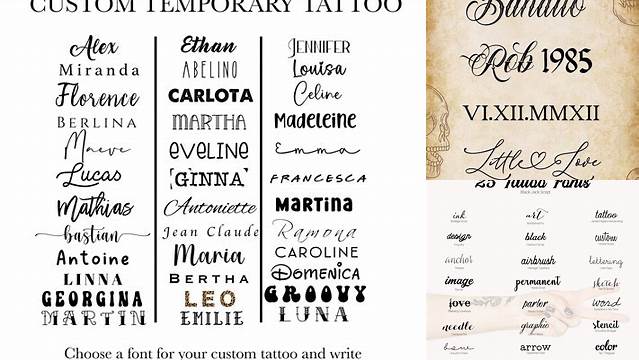
Tattoo Fonts For Names: Free Download & Ideas
Tattoos are a fantastic way to express yourself, and what's more personal than getting a name inked on your skin? But choosing the right font is crucial! It can make or break the entire design. So, if you're on the hunt for the perfect tattoo fonts for names and want to explore some free download options, you've come to the right place. We'll dive deep into the world of tattoo lettering, look at different styles, and even give you some ideas to get those creative juices flowing. Let's get started, guys!
1. Classic Tattoo Lettering Styles
Classic tattoo lettering styles never go out of fashion, guys. They're timeless, elegant, and often easily readable. When thinking about tattoo fonts for names, these styles offer a solid foundation. Think about the old-school sailor tattoos – bold lines, clear shapes, and a distinct vintage feel. These fonts often evoke a sense of history and tradition, making them a popular choice for those who appreciate a classic aesthetic. For example, Old English fonts have a very distinct and recognizable look, often associated with tradition and history. It’s a bold choice that can make a strong statement. Script fonts, inspired by handwriting, offer elegance and fluidity. They can range from simple cursive styles to elaborate calligraphy. These fonts add a personal touch and can be beautifully intertwined with other design elements. Block lettering, characterized by its clean and straightforward appearance, provides maximum readability and impact. It’s a versatile choice that works well for various names and tattoo sizes. Lastly, serif fonts have small decorative strokes at the end of letters, giving them a sophisticated look. Times New Roman or Garamond can be adapted for tattoos, offering a timeless and elegant feel.
2. Modern Tattoo Font Designs
If classic isn't your vibe, maybe modern tattoo font designs are more your style! Modern fonts often incorporate clean lines, minimalist aesthetics, and a touch of innovation. For tattoo fonts for names that feel fresh and contemporary, these designs are definitely worth exploring. Modern tattoo fonts often break away from traditional conventions, incorporating geometric shapes, minimalist designs, and unique letterforms. Sans-serif fonts are a staple in modern design, offering a clean and uncluttered look. Helvetica, Arial, and similar fonts provide excellent readability and a contemporary feel. Geometric fonts incorporate precise shapes and angles, giving the tattoo a structured and modern appearance. These fonts can be very striking and visually appealing. Abstract fonts push the boundaries of traditional typography, using unconventional shapes and arrangements. These fonts are perfect for those looking for something truly unique and artistic. Lastly, handwritten-style fonts can be modernized by using clean, flowing lines that feel both personal and contemporary. Think calligraphy with a minimalist twist.
3. Script Tattoo Fonts for Names
Script fonts are super popular when it comes to name tattoos. They add a touch of elegance and fluidity that other fonts might not have. These tattoo fonts for names mimic handwriting and can range from delicate cursive to bold calligraphy. Calligraphy fonts are like the fancy cousins of script fonts! They often feature elaborate swirls and flourishes, making them ideal for names that deserve a bit of extra flair. Think of elegant wedding invitations, but on your skin. Brush script fonts mimic the look of actual brushstrokes, giving your tattoo a natural and artistic feel. It’s like having a hand-painted masterpiece right on your skin. Cursive fonts are the classic handwriting style, offering a simple yet elegant way to display a name. They are easily readable and versatile, fitting well with various tattoo designs. For a more personalized touch, consider personalized handwriting fonts, which are based on actual handwriting. This creates a unique and deeply meaningful tattoo, reflecting the individual’s style.
4. Gothic Tattoo Fonts and Their Meanings
Gothic fonts have a certain mystique, don't they? They're bold, dramatic, and often associated with a sense of history and tradition. Using Gothic tattoo fonts for names can add a powerful visual impact. But it's not just about the looks; these fonts often carry symbolic weight. Understanding the meanings behind them can help you choose the perfect font that resonates with your personality and the message you want to convey. Gothic fonts are historically linked to medieval texts and architecture, often conveying a sense of strength, mystery, and timelessness. Blackletter fonts, a classic Gothic style, are characterized by their heavy, angular strokes. They often evoke a sense of tradition and can be seen as a nod to historical texts. Old English fonts, a subset of blackletter, are commonly used in diplomas and formal documents, giving them an air of authority and elegance. These fonts can also symbolize a connection to heritage and ancestry. Display Gothic fonts are more decorative and stylized, offering a dramatic visual impact. They are perfect for those who want a bold and eye-catching tattoo. Gothic fonts, in general, can symbolize strength, resilience, and a connection to the past, making them a powerful choice for name tattoos.
5. Old English Tattoo Font Variations
Old English fonts, with their elaborate strokes and historical vibe, are a classic choice for tattoos. When you're considering tattoo fonts for names, Old English can add a timeless touch. But did you know there are variations within the Old English style? Exploring these can help you find the perfect match for your name and overall tattoo design. There are several ways to customize Old English fonts to create a unique tattoo. Consider the thickness of the lines: thicker lines give a bolder, more impactful appearance, while thinner lines can appear more delicate and refined. The presence and style of serifs (the small decorative strokes at the end of letters) can also vary. Some Old English fonts have very pronounced serifs, while others have more subtle ones. The level of ornamentation in the font can also be adjusted. Some Old English fonts are highly ornate, with lots of flourishes and embellishments, while others are more streamlined and minimalist. Customizing these aspects can make a significant difference in the final look. Common variations include traditional Old English, which is the classic, ornate style most people think of, modern Old English, which simplifies the traditional style for better readability and a contemporary feel, and distressed Old English, which adds a weathered or vintage look, making the tattoo appear aged and authentic. Ultimately, the best Old English variation depends on your personal style and the overall design of the tattoo.
6. Cursive Tattoo Fonts and Readability
Cursive fonts are a popular pick for name tattoos, guys! They have that elegant, flowing look that's just so appealing. But here's the thing: readability is key! If your tattoo fonts for names are too swirly or intricate, the name might become hard to decipher. So, let's talk about how to balance style with clarity when choosing a cursive font. When selecting a cursive font, prioritize fonts that maintain a good balance between style and readability. Avoid fonts with overly elaborate flourishes or closely spaced letters. A simple, clean cursive is often the best choice. The placement of the tattoo also plays a role in readability. Areas with a lot of curves or movement (like the wrist or ankle) may distort the font slightly, so choose a font that will still be legible in these areas. The size of the tattoo is crucial: a smaller tattoo will require a simpler font with clear lines, while a larger tattoo can accommodate more intricate designs. To enhance readability, consider adjusting the spacing between letters and words. Adding a bit of extra space can prevent the letters from blurring together. A skilled tattoo artist can advise on the best adjustments to ensure your tattoo is both beautiful and easy to read.
7. Free Tattoo Font Download Websites
Okay, so you're ready to find the perfect font, but you don't want to break the bank? No problem! There are tons of websites offering free tattoo fonts for names. But navigating these sites can be a bit overwhelming, so let's break down some reliable resources where you can find awesome fonts without spending a dime. DaFont is a massive repository of fonts, with a wide variety of styles suitable for tattoos. Look for the “Script” or “Calligraphy” sections for cursive options, or the “Old School” section for classic styles. FontSpace offers a vast selection of free fonts, including many script and decorative fonts perfect for tattoos. The site also has a user-friendly interface, making it easy to find what you're looking for. Google Fonts is a great resource for modern and readable fonts that can be adapted for tattoos. While not specifically designed for tattoos, these fonts offer clean lines and excellent clarity. Creative Market often offers free font downloads as part of their weekly free goods. Keep an eye on their promotions for high-quality options. 1001 Free Fonts is another extensive library with a wide range of font styles. Be sure to check the licensing terms for each font to ensure it's free for commercial use (if needed). Remember to always preview the font with your chosen name to see how it looks before committing to a design. Lastly, ensure that the downloaded font is compatible with your tattoo artist's software. A little preparation can save a lot of headaches later!
8. Matching Fonts with Tattoo Designs
Choosing the right font isn't just about the letters themselves; it's about how they vibe with the overall tattoo design. The font should complement the imagery and enhance the tattoo's message. When considering tattoo fonts for names, think about the visual harmony between the font and the other elements of your tattoo. The style of the font should align with the overall aesthetic of the tattoo. A delicate script font might pair well with floral designs, while a bold Gothic font might suit a more edgy or traditional tattoo. Consider the other design elements in your tattoo. If you have strong, bold lines in your design, a similar font style will create a cohesive look. Conversely, a more delicate font can provide a nice contrast to bolder elements. Think about the overall message you want to convey. A classic font might be chosen for a memorial tattoo, while a more playful font might be used for a tattoo celebrating a joyful event. The size and placement of the font should also complement the design. A larger, more ornate font might work well on a larger area, while a smaller, simpler font is better suited for smaller tattoos or more delicate placements. Experiment with different font and design combinations to see what looks best. A good tattoo artist can provide valuable input on which fonts will work well with your chosen design. Remember, a well-matched font can elevate your tattoo from good to great, creating a visually stunning and meaningful piece of art.
9. Tattoo Font Generators Online
Not sure where to start with font selection? Online tattoo font generators can be super handy! These tools let you preview your name in various fonts, making it easier to visualize the final result. For tattoo fonts for names, these generators can save you a ton of time and effort. Tattoo font generators allow you to quickly preview your chosen name or word in a variety of fonts, helping you visualize the final tattoo design. Many generators offer a wide selection of fonts, ranging from classic scripts to modern sans-serif styles, allowing you to explore different looks. These tools often allow you to customize the size, color, and orientation of the font, providing a realistic preview of how the tattoo will look on your skin. Some generators offer additional features, such as the ability to add design elements or backgrounds, further enhancing the visualization process. Popular online tattoo font generators include Tattoo Lettering, Font Generator Guru, and Tattoodo. These sites provide a range of options and user-friendly interfaces. Using a font generator can save time by narrowing down font choices before consulting with a tattoo artist. You can experiment with different styles and sizes to get a clear idea of what you want. While these generators are helpful, it’s always a good idea to consult with a professional tattoo artist. They can offer advice on font suitability, readability, and how the font will work with the overall tattoo design. Keep in mind that the generator is just a starting point; the final decision should always be made in consultation with your artist.
10. Font Size and Placement Considerations
The size and placement of your name tattoo can significantly impact its overall look and readability. For tattoo fonts for names, these factors are just as important as the font choice itself. A well-chosen font in the wrong size or placement might not look as good as you'd hoped, so let's delve into the details. Consider the placement of your tattoo when choosing a font size. Smaller, more intricate fonts work well on larger, flatter areas like the back or chest. Simpler, bolder fonts are better for smaller areas or those with curves and movement, like the wrist or ankle. The size of the font should be proportional to the body part. A tiny font on a large area might look lost, while a huge font on a small area can look cramped. Think about the readability of the font at the chosen size. A beautiful cursive font might be illegible if it’s too small. Always do a test print or use a font generator to see how the font looks at different sizes. Placement can affect how the tattoo ages over time. Areas with a lot of movement or friction might cause the tattoo to fade or blur more quickly, so a simpler, bolder font might be a better choice in these areas. Consult with your tattoo artist about the best size and placement for your tattoo. They can provide valuable advice based on their experience and your specific design. Remember, the goal is to create a tattoo that looks great now and will continue to look great for years to come. Proper size and placement are key to achieving this.
11. Best Tattoo Fonts for Forearm Tattoos
The forearm is a super popular spot for tattoos, and for good reason! It's visible, yet easily concealed, and offers a decent amount of space for designs. So, what are the best tattoo fonts for names when it comes to forearm tattoos? Let's explore some stylish and legible options that work well on this versatile canvas. For forearm tattoos, readability is key, as the area is often viewed up close. Bold, clear fonts like sans-serif or block lettering are excellent choices for maximum impact and legibility. Script fonts can also work well on the forearm, but it’s important to choose a font that is not too intricate. A simpler, cleaner script will be easier to read and will age better over time. The length of the name or word will influence the font choice. Longer names may require a more condensed font or a smaller size, while shorter names can handle bolder or more decorative fonts. The direction of the tattoo (horizontal or vertical) can also affect the font choice. Horizontal tattoos typically work well with a wider range of fonts, while vertical tattoos may benefit from taller, narrower fonts. Popular font styles for forearm tattoos include Old English (for a classic look), cursive scripts (for elegance), and geometric fonts (for a modern feel). Consider the overall aesthetic you want to achieve. A simple, minimalist font can create a clean and understated look, while a more ornate font can make a bold statement. Consult with your tattoo artist to discuss font options and placement. They can provide valuable advice on what will look best on your forearm and ensure the tattoo is well-executed. Remember, the forearm is a prominent spot, so choosing the right font is essential for a tattoo you’ll love for years to come.
12. Tattoo Fonts for Wrist Name Tattoos
The wrist is a delicate and intimate spot for a tattoo, often chosen for its visibility and personal significance. When it comes to tattoo fonts for names on the wrist, careful consideration is essential. The limited space requires a font that is both stylish and legible. The small canvas of the wrist requires a font that is clean and easy to read. Intricate or overly decorative fonts can become blurred or illegible in this area. Simpler fonts like sans-serif, delicate scripts, and thin serifs tend to work best on the wrist. The length of the name or word is a crucial factor. Shorter names are ideal for wrist tattoos, as they can be displayed clearly without overcrowding the space. If the name is longer, consider using initials or a nickname. The placement of the tattoo on the wrist can affect the font choice. Tattoos that wrap around the wrist may benefit from a more flexible or flowing font, while those placed on the flat part of the wrist may accommodate a wider range of styles. Consider the overall aesthetic you want to achieve. A delicate script font can add a touch of elegance, while a simple sans-serif font can create a minimalist look. Popular font styles for wrist tattoos include cursive scripts (for a feminine touch), minimalist sans-serif (for a modern feel), and Roman numerals (for a timeless and symbolic look). It’s crucial to choose a font that will age well on the wrist, as the skin in this area is prone to movement and friction. Simpler fonts with clean lines are less likely to blur or fade over time. Always consult with your tattoo artist to discuss font options and placement. They can provide valuable advice on what will look best on your wrist and ensure the tattoo is perfectly executed.
13. Ankle Tattoo Lettering Ideas
The ankle is another popular spot for tattoos, often chosen for its discreet yet stylish appeal. Ankle tattoos can be easily concealed or shown off, making them a versatile choice. When it comes to tattoo fonts for names on the ankle, there are several unique considerations. The shape and size of the ankle area require careful font selection. The curvature of the ankle can distort the appearance of some fonts, so it’s important to choose a font that will remain legible. The limited space on the ankle means that simpler, smaller fonts often work best. Overly elaborate or large fonts can look cramped or illegible. Delicate script fonts can be particularly beautiful on the ankle, adding a touch of elegance and femininity. However, it’s crucial to choose a script that is not too intricate, as fine lines can blur over time. Vertical tattoos are common on the ankle, following the natural curve of the leg. Taller, narrower fonts work well in this orientation. Shorter names or words are ideal for ankle tattoos, as they fit comfortably within the space. If the name is longer, consider using initials or a symbolic abbreviation. Consider the overall aesthetic you want to achieve. A minimalist sans-serif font can create a clean and modern look, while a more decorative font can add a touch of personality. Popular font styles for ankle tattoos include cursive scripts (for a delicate look), sans-serif fonts (for a modern feel), and small Old English fonts (for a classic touch). It’s important to choose a font that will age well on the ankle, as the skin in this area is subject to movement and friction. Simpler fonts with clear lines are less likely to fade or blur over time. Always consult with your tattoo artist to discuss font options and placement. They can provide valuable advice on what will look best on your ankle and ensure the tattoo is perfectly executed.
14. Shoulder Tattoo Font Styles
The shoulder is a fantastic canvas for tattoos, offering a broad, flat surface that can accommodate a wide range of designs. When it comes to tattoo fonts for names on the shoulder, the possibilities are nearly endless. The shoulder offers ample space for larger, more elaborate fonts. This makes it a great choice for those who want to make a bold statement. The shape of the shoulder allows for tattoos that flow with the natural curves of the body. Fonts that incorporate flowing lines or decorative elements can be particularly striking in this area. Bold, script fonts work well on the shoulder, adding a touch of elegance and sophistication. The size of the font can be adjusted to fit the space, allowing for longer names or phrases. The shoulder can also accommodate larger, more intricate fonts. Gothic or Old English fonts can create a dramatic and impactful look. Consider the placement of the tattoo on the shoulder. Tattoos that extend towards the collarbone or down the arm may benefit from a different font style than those placed on the upper shoulder. Think about the overall aesthetic you want to achieve. A minimalist sans-serif font can create a clean and modern look, while a more ornate font can add a touch of personality and flair. Popular font styles for shoulder tattoos include script fonts (for a flowing, elegant look), Gothic or Old English fonts (for a bold, dramatic appearance), and sans-serif fonts (for a clean, modern feel). Consult with your tattoo artist to discuss font options and placement. They can provide valuable advice on what will look best on your shoulder and ensure the tattoo is perfectly executed. Remember, the shoulder is a prominent and versatile spot, so choosing the right font can create a tattoo that is both beautiful and meaningful.
15. Back Tattoo Lettering Ideas for Names
The back is often considered a prime location for tattoos, offering a large canvas that allows for intricate and expansive designs. When considering tattoo fonts for names on the back, the possibilities are vast and varied. The back's expansive surface provides ample space for larger, more elaborate lettering styles. This allows for creativity in font selection and design. The back allows for designs that flow with the natural contours of the body. Script fonts, cursive styles, and other flowing fonts can be particularly striking in this area. Consider the placement of the name on the back. A name placed along the spine can create a dramatic and personal statement, while a name across the upper back can be more visible. The size of the font should be proportional to the overall design and the size of the back. A smaller font may get lost on a larger back, while an overly large font can appear overwhelming. Think about the overall aesthetic you want to achieve. A Gothic or Old English font can create a bold and dramatic statement, while a delicate script font can add an elegant and personal touch. Popular font styles for back tattoos include script fonts (for a flowing, elegant look), Gothic or Old English fonts (for a bold, dramatic appearance), and Roman numerals (for a timeless and symbolic touch). Consider incorporating other design elements with the name, such as floral patterns, symbols, or geometric shapes, to create a unique and personalized tattoo. Consult with your tattoo artist to discuss font options, placement, and overall design. They can provide valuable advice on what will look best on your back and ensure the tattoo is perfectly executed. Remember, the back is a significant canvas, so choosing the right font and design can create a tattoo that is both beautiful and deeply meaningful.
16. Rib Cage Tattoo Font Styles
The rib cage is a popular spot for tattoos, often chosen for its ability to create both intimate and visually striking designs. Tattoos on the rib cage can be easily concealed or revealed, offering a versatile option for self-expression. When considering tattoo fonts for names on the rib cage, there are specific considerations due to the area's shape and sensitivity. The rib cage's curved surface requires careful font selection to ensure legibility and aesthetic appeal. Fonts that flow with the body's natural lines, such as script or cursive styles, often work well in this area. The limited space on the rib cage may necessitate simpler, more compact fonts. Overly elaborate or large fonts can appear cramped or distorted. The sensitivity of the rib cage area can influence font choice. Simpler fonts with thinner lines may be less painful to tattoo than bold, heavy fonts. Consider the placement of the name on the rib cage. A name placed along the ribs can create a subtle and personal statement, while a name extending across the ribs can be more visible and dramatic. The size of the font should be proportional to the area and the length of the name. A longer name may require a smaller font or a more condensed style. Think about the overall aesthetic you want to achieve. A delicate script font can add a feminine and elegant touch, while a bold Gothic font can create a more edgy and dramatic look. Popular font styles for rib cage tattoos include script fonts (for a flowing, elegant look), sans-serif fonts (for a clean, minimalist feel), and Roman numerals (for a symbolic and timeless touch). Consult with your tattoo artist to discuss font options, placement, and pain considerations. They can provide valuable advice on what will look best on your rib cage and ensure the tattoo is perfectly executed. Remember, the rib cage offers a unique canvas, so choosing the right font and design can create a tattoo that is both beautiful and deeply personal.
17. Finger Tattoo Lettering for Names
Finger tattoos have become increasingly popular, offering a discreet yet stylish way to express yourself. However, the small canvas and unique challenges of finger tattoos require careful consideration, especially when it comes to lettering. When thinking about tattoo fonts for names on your fingers, simplicity and clarity are key. The limited space on fingers necessitates very small fonts. Overly intricate or detailed fonts can blur or fade quickly, becoming illegible. Simple, minimalist fonts with clear lines and shapes tend to work best on fingers. Sans-serif fonts, such as Arial or Helvetica, are excellent choices for finger tattoos due to their clean and straightforward design. Consider using initials or abbreviations rather than full names, as they are easier to accommodate on the small surface of a finger. The placement of the tattoo on the finger can affect font choice. Letters placed on the sides of the fingers may require a slightly different font style than those placed on the top or bottom. The thin skin on fingers can cause tattoos to fade more quickly than in other areas. Choose a font that will maintain its shape and clarity over time. Avoid fonts with very thin lines or delicate details, as these are more prone to fading. Consider the overall aesthetic you want to achieve. A simple, minimalist font can create a subtle and elegant look, while a slightly bolder font can make a more impactful statement. Consult with your tattoo artist about font options and placement. They can provide valuable advice based on their experience with finger tattoos and ensure the best possible outcome. Remember, finger tattoos are prone to fading and may require touch-ups, so choosing a font that is easy to maintain is essential.
18. Minimalist Tattoo Font Choices
Minimalist tattoos are all the rage these days, and for good reason! They're clean, elegant, and understated. If you're leaning towards a minimalist vibe for your name tattoo, the font choice is crucial. The right minimalist tattoo fonts for names can make a big impact with their simplicity. Minimalist fonts are characterized by their clean lines, simple shapes, and lack of ornamentation. These fonts prioritize clarity and readability, making them ideal for small tattoos or designs with a subtle aesthetic. Sans-serif fonts are a staple of minimalist design. Arial, Helvetica, and similar fonts offer a clean and modern look that works well for minimalist tattoos. Thin, delicate fonts can create a subtle and elegant effect. These fonts are perfect for those who want a tattoo that is understated yet stylish. Monoline fonts, which have consistent line thickness throughout each letter, are another excellent choice for minimalist tattoos. They offer a clean and balanced appearance. Consider using lowercase letters for a softer and more understated look. Lowercase fonts can add a touch of playfulness to a minimalist tattoo. When choosing a minimalist font, think about the overall design of the tattoo. The font should complement the other elements and create a cohesive look. Minimalist fonts can be combined with simple geometric shapes or line work to create a modern and stylish tattoo. The placement of the tattoo can also influence font choice. Smaller, more delicate fonts work well on areas like the wrist or ankle, while slightly bolder fonts can be used on larger areas like the forearm or shoulder. Consult with your tattoo artist about font options and placement. They can provide valuable advice on what will look best with your overall design and aesthetic. Remember, the beauty of minimalist tattoos lies in their simplicity, so choosing the right font is essential for achieving the perfect understated look.
19. Bold Tattoo Lettering Styles for Names
Sometimes, you want your tattoo to make a statement! Bold lettering styles are perfect for those who want their name tattoo to stand out and command attention. For tattoo fonts for names that pack a punch, bold fonts are the way to go. Bold fonts are characterized by their thick lines and strong visual presence. They are designed to be easily seen and read, making them ideal for tattoos that you want to be noticed. Block lettering is a classic choice for bold tattoos. These fonts feature thick, uniform lines that create a strong and impactful look. Gothic fonts, with their heavy strokes and dramatic flair, are another excellent option for bold lettering. Old English fonts, a subset of Gothic, offer a traditional and ornate style that can be very striking. Consider using uppercase letters for an even bolder look. Uppercase letters tend to have a more assertive and commanding presence than lowercase letters. Shadowed fonts can add depth and dimension to your tattoo, making the lettering appear even bolder. A simple shadow effect can enhance the visual impact of the font. Outline fonts, where the letters are defined by their outlines rather than filled in, can also create a bold and striking look. The negative space within the letters draws the eye and makes the tattoo stand out. When choosing a bold font, think about the placement of the tattoo. Bold fonts work well on larger areas like the forearm, shoulder, or back, where there is ample space for the lettering to be displayed prominently. Consult with your tattoo artist about font options and placement. They can provide valuable advice on what will look best with your overall design and aesthetic. Remember, bold lettering is all about making a statement, so choose a font that reflects your personality and style.
20. Unique and Creative Name Tattoo Fonts
If you're looking for a name tattoo that's truly one-of-a-kind, it's time to think outside the box! Ditch the standard fonts and explore some unique and creative options. When it comes to tattoo fonts for names, stepping away from the norm can result in a truly personalized piece of art. Calligraphy-inspired fonts can add a touch of elegance and artistry to your name tattoo. These fonts mimic the look of hand-lettered calligraphy, creating a flowing and graceful design. Brush script fonts, which resemble brushstrokes, offer a more organic and artistic feel. These fonts add a personal touch and can make your tattoo look like a hand-painted masterpiece. Consider incorporating symbols or design elements into the font itself. For example, you could add floral accents or geometric shapes to the letters. Hand-drawn fonts, which mimic the look of actual handwriting, are a great way to create a truly unique and personalized tattoo. These fonts capture the individuality of your own handwriting or the handwriting of someone special. Experiment with unconventional font styles, such as those inspired by vintage signage or typography. These fonts can add a retro or industrial vibe to your tattoo. Consider using a combination of different fonts to create a more dynamic and visually interesting design. Mixing and matching font styles can add depth and personality to your tattoo. When choosing a unique font, think about the overall design of the tattoo and how the font will complement the other elements. The font should enhance the message and aesthetic of the tattoo. Consult with your tattoo artist about font options and design ideas. They can provide valuable input and help you create a truly unique and meaningful tattoo. Remember, a unique font can elevate your name tattoo from ordinary to extraordinary, creating a piece of art that is as individual as you are.
21. Tattoo Fonts Inspired by Handwriting
Handwriting fonts bring a personal and intimate touch to tattoos. They capture the unique character and style of individual handwriting, making your name tattoo feel extra special. If you're considering tattoo fonts for names, these fonts offer a direct connection to someone's personality. Handwriting fonts mimic the look of actual handwriting, from casual script to elegant cursive. This personal touch can make your tattoo feel more meaningful and intimate. There are several variations of handwriting fonts to choose from. Some mimic the look of neat, flowing cursive, while others capture the more casual and spontaneous style of everyday handwriting. You can even have a font custom-made from your own handwriting or the handwriting of a loved one. This creates a truly unique and personal tattoo. Consider the legibility of the font. While the personal touch of handwriting is appealing, it’s important to choose a font that is still easy to read. Choose a font with clear and distinct letterforms. The placement of the tattoo can also influence font choice. Smaller, more delicate handwriting fonts work well on areas like the wrist or ankle, while larger handwriting fonts can be used on areas like the forearm or shoulder. Think about the overall message you want to convey. A neat and elegant handwriting font can add a touch of sophistication, while a more casual font can create a relaxed and personal feel. Consider incorporating other design elements with the handwriting, such as a signature or a meaningful date. This can add further personalization to your tattoo. Consult with your tattoo artist about font options and design ideas. They can provide valuable input and help you create a tattoo that truly reflects your personality and style. Remember, handwriting fonts offer a unique opportunity to create a tattoo that is deeply personal and meaningful. They capture the essence of individual handwriting, making your name tattoo a true reflection of you or someone you love.
22. Matching Tattoo Fonts with Personalities
The font you choose for your name tattoo can say a lot about your personality! Just like clothes or hairstyles, different fonts evoke different feelings and styles. So, when thinking about tattoo fonts for names, consider how the font reflects who you are. If you have a classic and timeless personality, consider traditional fonts like Old English or Roman. These fonts exude elegance and sophistication, making a statement that is both timeless and refined. For a more modern and minimalist personality, sans-serif fonts are an excellent choice. These fonts offer clean lines and a simple aesthetic, reflecting a contemporary and understated style. If you’re artistic and creative, explore calligraphy-inspired or brush script fonts. These fonts add a touch of artistry and flair, capturing the essence of a free-spirited personality. For those with a bold and dramatic personality, Gothic or blackletter fonts can make a strong statement. These fonts exude power and confidence, making your tattoo a true reflection of your assertive nature. If you have a delicate and feminine personality, consider cursive or script fonts. These fonts add a touch of elegance and grace, creating a tattoo that is both beautiful and refined. For a more playful and whimsical personality, hand-drawn fonts or unique lettering styles can be a great choice. These fonts add a personal touch and reflect a fun-loving and carefree attitude. Think about your personal style and the overall message you want to convey with your tattoo. The font should align with your personality and create a cohesive look. Consult with your tattoo artist about font options and design ideas. They can provide valuable input and help you choose a font that truly reflects who you are. Remember, your name tattoo is a personal statement, so choosing a font that matches your personality is key to creating a tattoo you’ll love for years to come.
23. Combining Fonts in Name Tattoos
Who says you have to stick to just one font? Combining different fonts in your name tattoo can create a visually interesting and unique design. For tattoo fonts for names, mixing and matching can add depth and personality, making your tattoo stand out from the crowd. Combining fonts can add visual interest and create a more dynamic design. The contrast between different font styles can make your tattoo more eye-catching and memorable. You can use different fonts to highlight certain parts of the name or add emphasis to specific letters. For example, you might use a bold font for the first letter and a more delicate font for the rest of the name. When combining fonts, it’s important to choose fonts that complement each other. A good rule of thumb is to pair a simpler font with a more decorative font. Avoid using fonts that are too similar, as this can create a cluttered or confusing look. Consider using different font sizes to add visual hierarchy to your tattoo. Larger fonts will draw the eye, while smaller fonts can be used for secondary elements. You can also combine fonts with different weights, such as a bold font paired with a lighter font. This creates a contrast that adds depth to the design. Think about the overall aesthetic you want to achieve. Combining different font styles can create a variety of effects, from elegant and sophisticated to playful and whimsical. Consult with your tattoo artist about font combinations and design ideas. They can provide valuable input and help you create a tattoo that is both visually appealing and meaningful. Remember, combining fonts can be a great way to add personality and creativity to your name tattoo, but it’s important to do it thoughtfully and with the guidance of a professional.
24. Tattoo Font Color and Shading Effects
The color and shading of your tattoo font can dramatically change its appearance and impact. These elements add depth, dimension, and personality to your name tattoo. When selecting tattoo fonts for names, don't overlook the power of color and shading. Color can evoke emotions and add visual interest to your tattoo. Different colors have different meanings and can be used to express your personality and style. Black ink is a classic choice for tattoos and offers a timeless and bold look. Black ink is versatile and works well with a variety of font styles. Gray ink can be used to create subtle shading and depth, adding dimension to your tattoo. Shading techniques, such as stippling or gradients, can enhance the visual impact of the font. Colored ink can add vibrancy and personality to your tattoo. Consider using colors that have personal significance or that complement your skin tone. White ink can be used to create subtle highlights and details, adding a delicate touch to your tattoo. Shading techniques can add depth and dimension to the font, making it appear more three-dimensional. Consider using different shading styles, such as gradients or cross-hatching, to create unique effects. The color and shading should complement the font style and the overall design of the tattoo. A bold font may look best with solid black ink, while a more delicate font may benefit from subtle shading. Consult with your tattoo artist about color and shading options. They can provide valuable input and help you create a tattoo that is both visually appealing and meaningful. Remember, the color and shading of your tattoo font are important design elements that can enhance the overall look and feel of your tattoo. Choosing the right color and shading can make your tattoo a true work of art.
25. Temporary Tattoo Fonts for Name Placement
Not quite ready to commit to permanent ink? Temporary tattoos are an awesome way to test out font styles and placements before making a decision. For tattoo fonts for names, using a temporary tattoo lets you preview the design and make sure it's perfect for you. Temporary tattoos allow you to experiment with different font styles and sizes without the commitment of a permanent tattoo. This is a great way to visualize how the font will look on your skin and ensure you’re happy with the choice. You can try out different placements for your name tattoo using temporary tattoos. This helps you determine the best location on your body and see how the tattoo looks in different positions. Temporary tattoos are an excellent way to gauge the size of the font. You can create temporary tattoos in various sizes to see which one looks best and is most legible. You can wear a temporary tattoo for a few days or weeks to see how it feels and looks in everyday life. This can help you decide if the font and placement are right for you before making a permanent commitment. Temporary tattoos are a great way to get feedback from friends and family on your tattoo design. You can wear the temporary tattoo and ask for their opinions before getting the permanent ink. There are several online services that allow you to create custom temporary tattoos using your chosen font and name. These services make it easy to design and order temporary tattoos for testing purposes. Consider creating a few different temporary tattoos with various font styles and placements. This will give you a range of options to try out and help you make the best decision for your permanent tattoo. Consult with your tattoo artist about using temporary tattoos to test your design. They can provide valuable input and help you create a temporary tattoo that accurately reflects your desired look. Remember, temporary tattoos are a valuable tool for ensuring you’re happy with your name tattoo before making it permanent. They allow you to experiment with different styles and placements, giving you the confidence to make the right choice.
26. Aftercare Tips for Name Tattoos
Okay, so you've got your awesome name tattoo – congrats! But the job's not done yet. Proper aftercare is crucial to ensure your tattoo heals beautifully and stays vibrant for years to come. For tattoo fonts for names, following these aftercare tips will help maintain the clarity and crispness of the lettering. Keep the bandage on for the recommended time. Your tattoo artist will usually advise you on how long to keep the initial bandage on, typically a few hours. This bandage protects the fresh tattoo from bacteria and irritation. Gently wash the tattoo with mild soap and warm water. After removing the bandage, gently wash the tattoo with a mild, fragrance-free soap and warm water. Avoid harsh soaps or scrubbing, as this can irritate the skin. Pat the tattoo dry with a clean towel. Avoid rubbing the tattoo, as this can cause irritation and damage. Gently pat it dry with a clean, soft towel. Apply a thin layer of tattoo aftercare ointment. Apply a thin layer of tattoo aftercare ointment or moisturizer to keep the tattoo hydrated. Avoid using petroleum-based products, as they can clog pores. Keep the tattoo clean and dry. Avoid soaking the tattoo in water, such as in baths or swimming pools, until it is fully healed. Wear loose-fitting clothing. Avoid wearing tight clothing over the tattoo, as this can cause friction and irritation. Avoid scratching or picking at the tattoo. It’s normal for the tattoo to itch as it heals, but avoid scratching or picking at it, as this can damage the tattoo and increase the risk of infection. Protect the tattoo from the sun. Once the tattoo is healed, protect it from the sun by applying sunscreen. Sun exposure can cause the tattoo to fade over time. Follow your tattoo artist’s specific aftercare instructions. Your tattoo artist may have specific aftercare instructions based on your skin type and the tattoo design. Be sure to follow their instructions carefully. Remember, proper aftercare is essential for ensuring your name tattoo heals properly and looks its best. Following these tips will help keep your tattoo vibrant and beautiful for years to come.
27. Common Mistakes to Avoid with Name Tattoos
Getting a name tattoo is a big decision, and there are a few common pitfalls you'll want to steer clear of. Knowing what not to do is just as important as knowing what to do! When it comes to tattoo fonts for names, avoiding these mistakes will help ensure you end up with a tattoo you love. Choosing a font that is too small or intricate can lead to illegibility over time. Small, detailed fonts are more prone to blurring and fading, so opt for a font that is clear and easy to read. Selecting a font that doesn’t age well is another common mistake. Trendy fonts may look great now, but they might not stand the test of time. Choose a classic and timeless font that will still look good in years to come. Failing to consider placement can impact the look and readability of your tattoo. The placement should complement the font and the overall design. Avoid placing the tattoo in areas that are prone to stretching or distortion, such as joints. Not researching your tattoo artist is a big no-no! Make sure your artist is experienced and reputable, especially with lettering tattoos. Look at their portfolio and read reviews before making a decision. Neglecting aftercare can ruin a perfectly good tattoo. Follow your tattoo artist’s aftercare instructions carefully to ensure proper healing and prevent infection. Skipping the consultation with your tattoo artist is a missed opportunity. This is your chance to discuss your design ideas, font choices, and placement options. Trust your artist’s expertise. Rushing the decision-making process can lead to regrets. Take your time to consider your options and make sure you’re 100% happy with the design before getting inked. Remember, a name tattoo is a permanent decision, so it’s important to avoid these common mistakes. Careful planning and research will help you end up with a tattoo you’ll love for a lifetime.
28. How to Choose the Right Tattoo Artist for Lettering
Choosing the right tattoo artist is crucial for any tattoo, but it's especially important for lettering. A skilled artist can make or break your name tattoo, so you want to do your homework! When it comes to tattoo fonts for names, finding an artist who specializes in lettering is the key to success. Look for an artist with a strong portfolio of lettering tattoos. This is the best way to assess their skills and style. Pay attention to the quality of the line work, the consistency of the font, and the overall design. Check online reviews and testimonials to get feedback from other clients. This can give you valuable insights into the artist’s professionalism, hygiene practices, and customer service. Ask for recommendations from friends or online tattoo communities. Personal recommendations can be a great way to find a reputable artist. Schedule a consultation with the artist to discuss your design ideas and ask questions. This is your opportunity to get a feel for their expertise and personality. Make sure the artist is experienced in the specific font style you want. Some artists specialize in certain styles, such as script, Gothic, or minimalist lettering. A clean and sterile tattoo studio is a must. Hygiene is essential to prevent infections and ensure a safe tattooing experience. Trust your gut. If something doesn’t feel right, don’t hesitate to seek out another artist. You want to feel confident and comfortable with your choice. Consider the artist’s communication skills. A good artist will listen to your ideas, offer suggestions, and clearly explain the process. Remember, choosing the right tattoo artist is an investment in your tattoo. Take the time to do your research and find an artist who can bring your vision to life. A skilled artist can create a name tattoo that is both beautiful and meaningful.
29. The Evolution of Tattoo Lettering Styles
Tattoo lettering has come a long way, guys! From simple, bold designs to intricate and artistic fonts, the evolution of lettering styles reflects changing trends and technologies. Understanding this history can give you a deeper appreciation for the art of tattoo fonts for names and inspire your own design choices. Early tattoo lettering was often simple and bold, with a focus on readability. These designs were influenced by traditional sailor tattoos and the need for clear, impactful lettering. The invention of the tattoo machine in the late 19th century allowed for more intricate and detailed designs. This led to the development of more ornate fonts, such as Old English and Gothic lettering. The mid-20th century saw the rise of script fonts, influenced by calligraphy and handwriting styles. Script fonts added a touch of elegance and personalization to tattoos. The late 20th century and early 21st century have seen a resurgence of traditional tattoo styles, as well as the emergence of new and innovative lettering techniques. Modern technology, such as computer-aided design (CAD) software, has allowed for even greater precision and creativity in tattoo lettering. The evolution of tattoo lettering has been influenced by various cultural and artistic movements. Each era has brought its own unique styles and trends. Today, there is a wide range of lettering styles to choose from, allowing for endless possibilities in tattoo design. Whether you prefer a classic font or a modern style, there is a lettering style to suit your personality and aesthetic. The evolution of tattoo lettering is a testament to the creativity and artistry of tattoo artists throughout history. Understanding this history can help you appreciate the rich tradition of tattoo art and inspire your own tattoo journey. Remember, the history of tattoo lettering is a fascinating journey, showcasing the evolution of art, culture, and technology. Exploring this history can inspire your own tattoo designs and help you appreciate the timeless beauty of tattoo art.
30. Maintaining the Vibrancy of Your Tattoo Font Over Time
You've got your amazing name tattoo, but you want to keep those lines crisp and colors bright for the long haul, right? Maintaining the vibrancy of your tattoo font is totally doable with a little TLC. For tattoo fonts for names, preserving that clarity is key, so let's talk about how to keep your tattoo looking its best. Sun protection is your tattoo’s best friend! Sun exposure is one of the biggest culprits in tattoo fading. Always apply a high-SPF sunscreen to your tattoo when you’re going to be in the sun. Regular moisturizing keeps your skin hydrated, which helps your tattoo look its best. Use a good quality, fragrance-free moisturizer to keep the skin supple and prevent fading. Avoid harsh chemicals and abrasive products. Strong soaps, detergents, and other harsh chemicals can strip the skin of its natural oils and cause the tattoo to fade. Use mild, gentle cleansers. Stay hydrated by drinking plenty of water. Hydrated skin looks healthier and helps your tattoo retain its vibrancy. Proper hydration is key for overall skin health. Avoid excessive friction and rubbing. Friction from tight clothing or rough surfaces can cause the tattoo to fade over time. Wear loose-fitting clothing and be gentle when drying your skin. Consider touch-up appointments as needed. Over time, tattoos may fade slightly. Touch-up appointments with your tattoo artist can help refresh the colors and lines. Maintain a healthy lifestyle. A healthy diet, regular exercise, and sufficient sleep can all contribute to healthy skin and a vibrant tattoo. Follow your tattoo artist’s aftercare instructions for new tattoos. Proper aftercare is crucial for the initial healing process and can help ensure long-term vibrancy. Remember, maintaining the vibrancy of your tattoo font is an ongoing process. With a little care and attention, you can keep your tattoo looking fresh and beautiful for years to come.